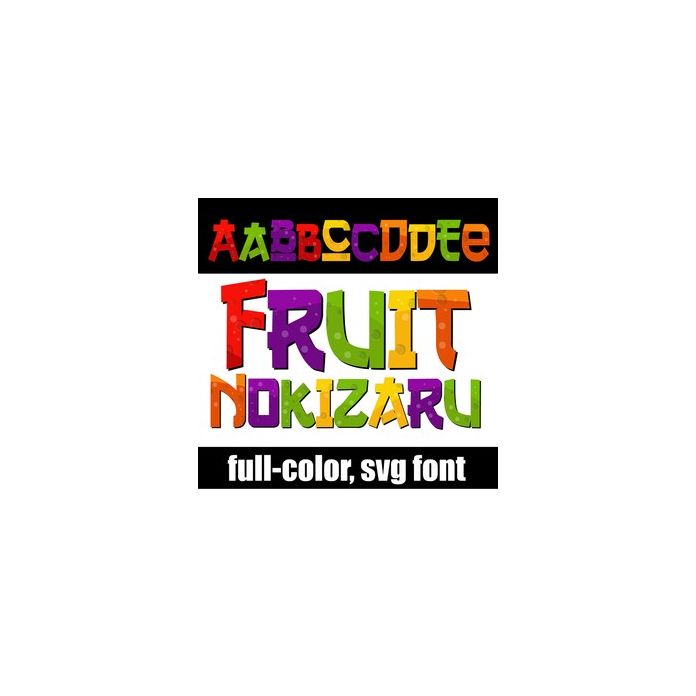
This fun, brightly colored, full-color font features an Eastern inspired font filled with the bright colors of fruit. There is an alt case w/ additional colors you can access through your system or Silhouette's glyph map.